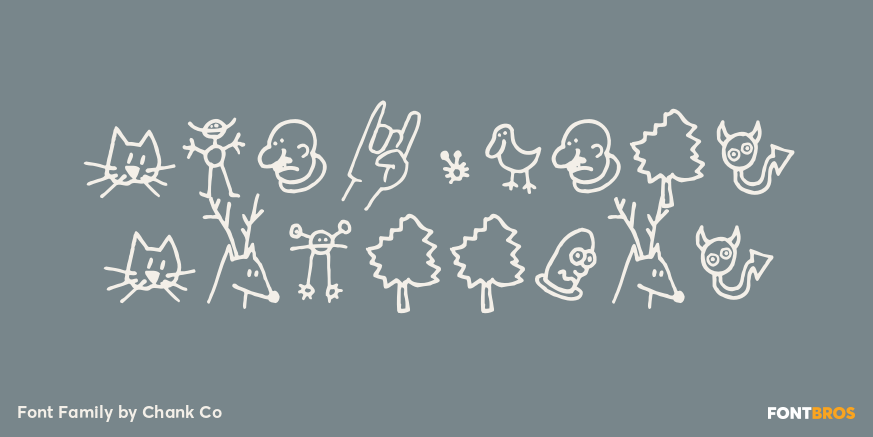
Chankbats Critters
About Chankbats Critters
Chankbats Critters are based upon the original drawings of artist Chank Diesel. Insert these nifty little doodles into your layouts when you feel an illustrator\’s touch would add personality to your designs, or when you want a nice little horsie picture…